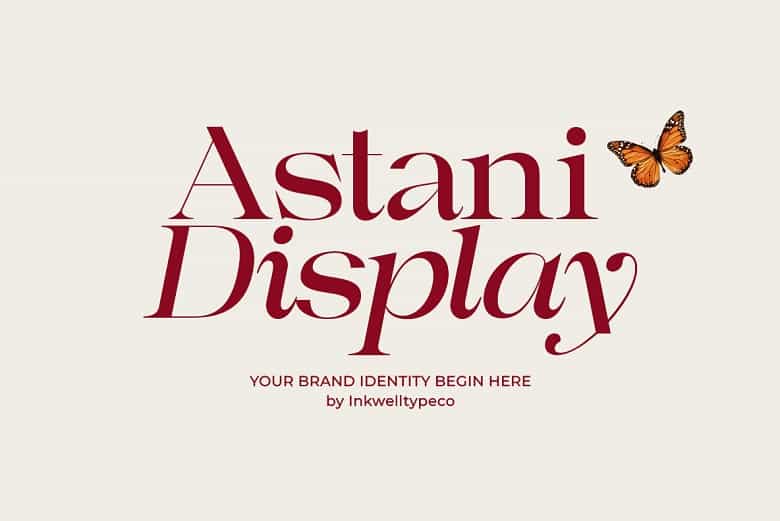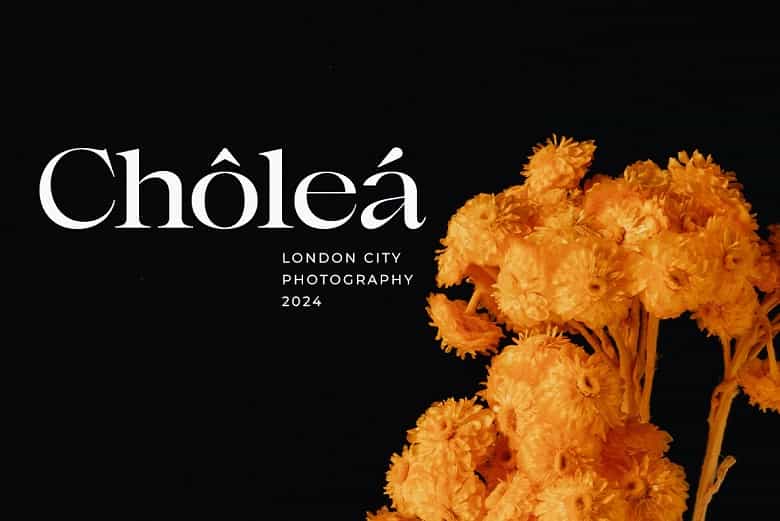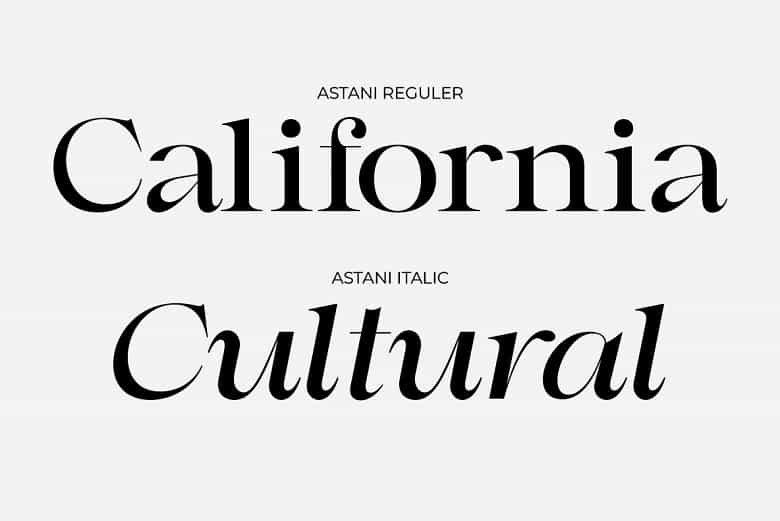
Astani Display is a new style serif font. It’s a font with clean lines that are still rather on the edgy side and blend the old with the new. Standard styles are characterised by clear, and less flexible weights, ideal for body texts, paragraphs or headings. Every letter is formed with precision to provide for a neat and easily comprehensible format.